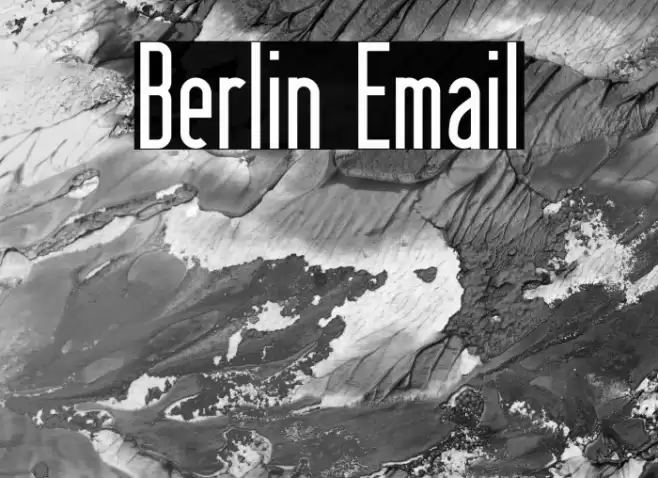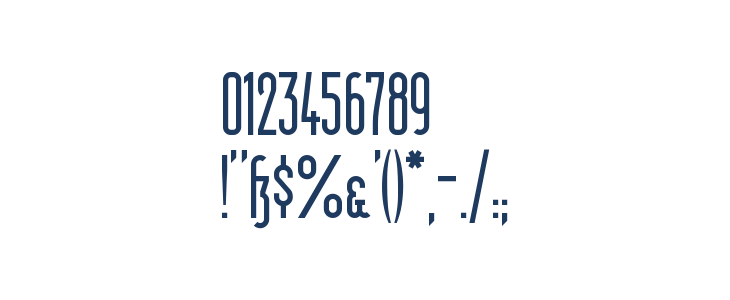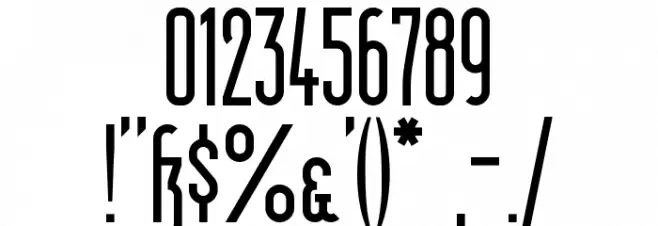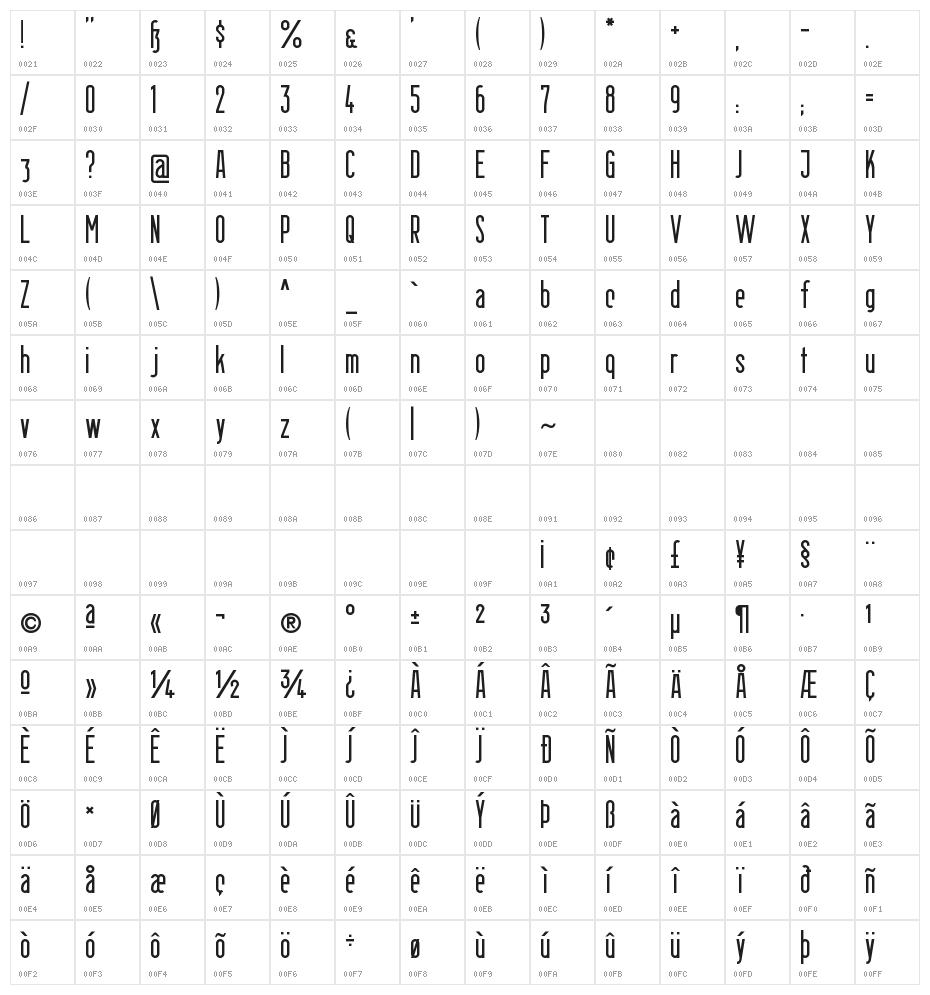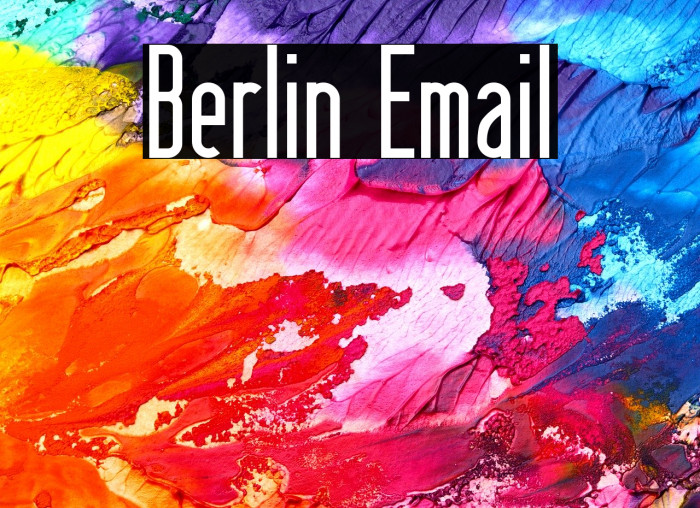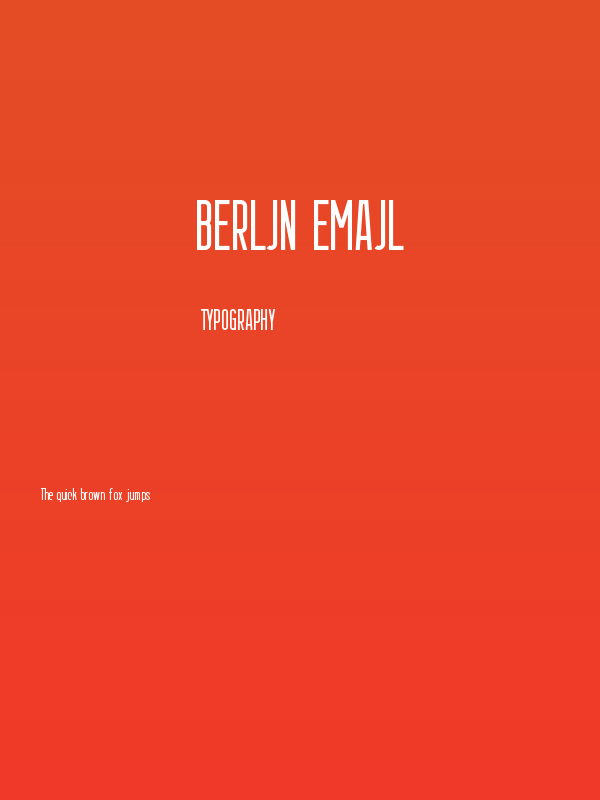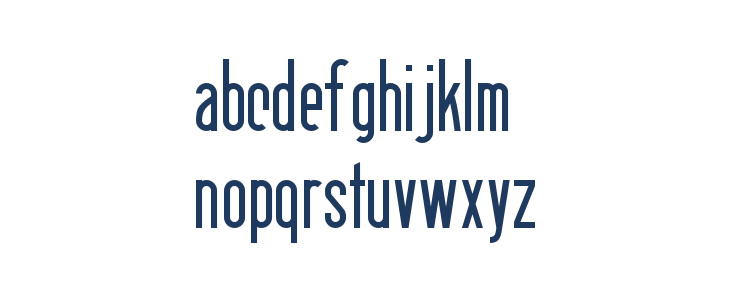
Berlin Email Font
Berlin Email Description
This font features a tall, narrow design with a modern and clean aesthetic. The uppercase letters are bold and elongated, giving a sense of height and elegance. The lowercase letters maintain a consistent style, with a slightly more rounded appearance that complements the uppercase. Numbers are clear and legible, matching the overall sleek design. Special characters are distinct and well-integrated, ensuring versatility in various applications. The font's uniform stroke width and minimal contrast contribute to its contemporary look, making it suitable for a range of design projects.
A tall, narrow, and modern font with a clean, sleek design from Uncategorized fonts.
- Proposed Projects: Ideal for branding, headlines, posters, and modern web design.